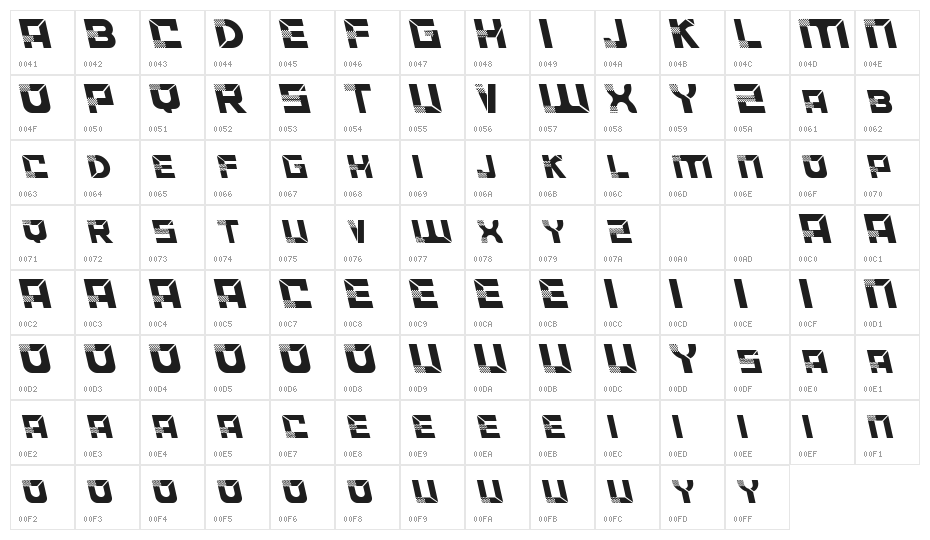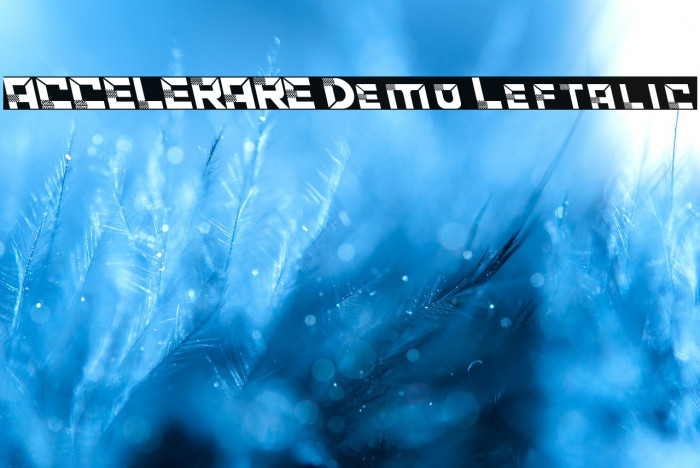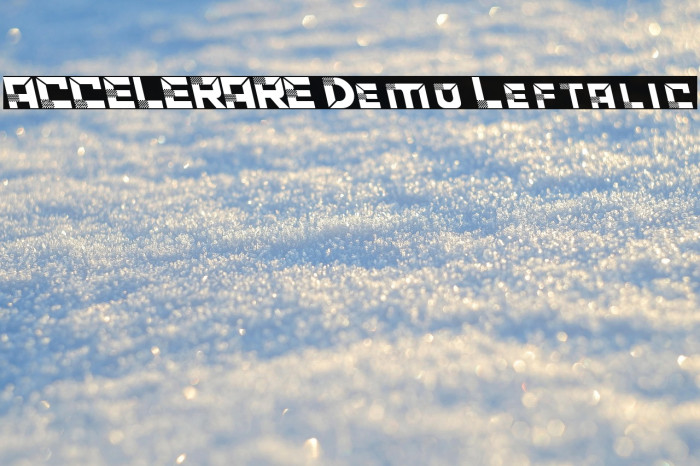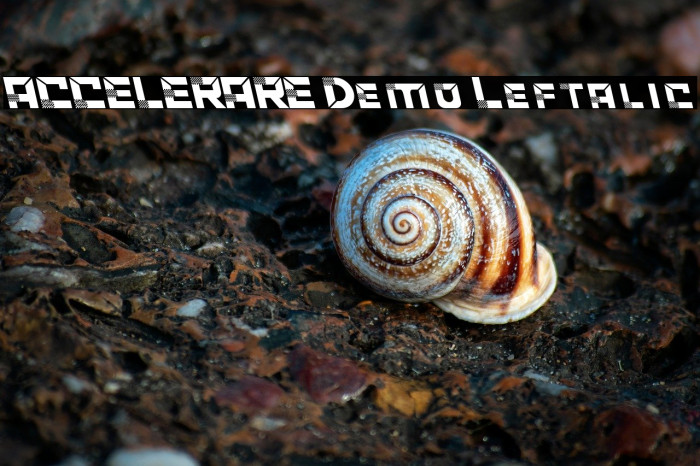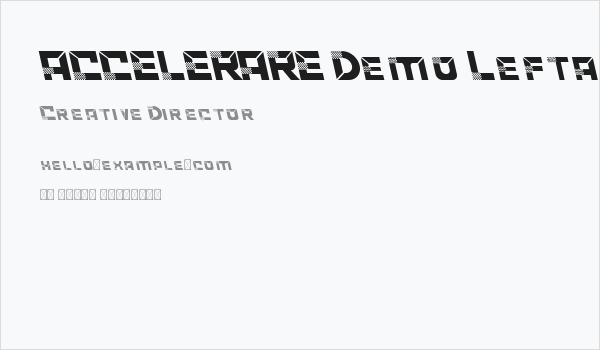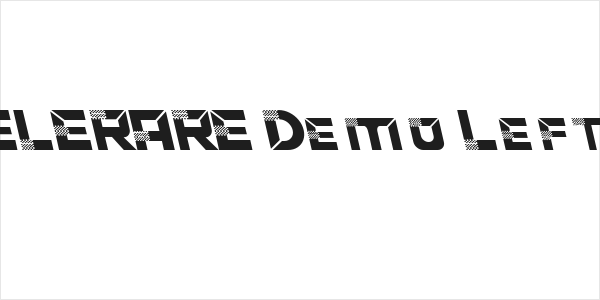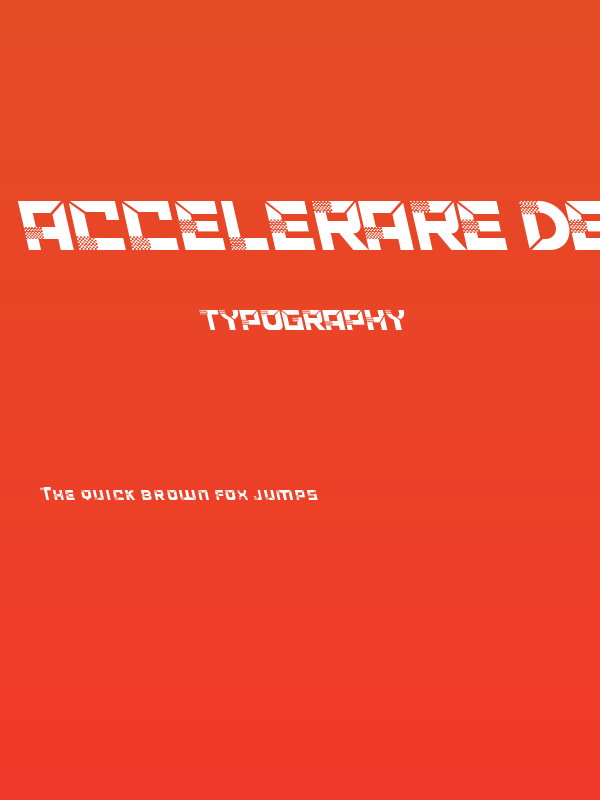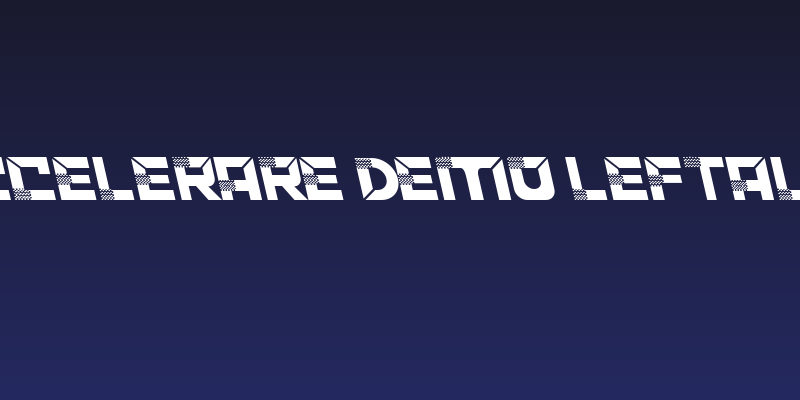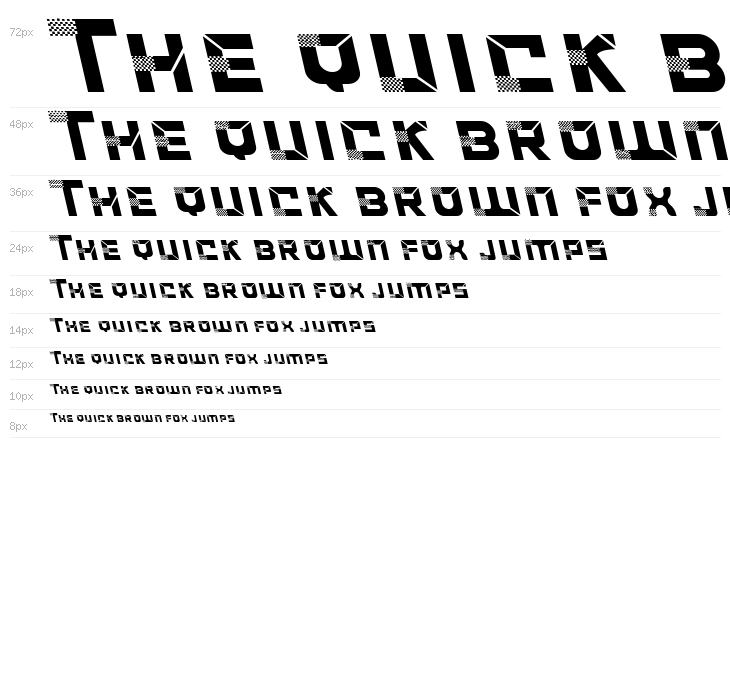
ACCELERARE Demo Leftalic Font
ACCELERARE Demo Leftalic Description
This font features a bold and dynamic design with a distinct geometric style. The characters are constructed with sharp angles and a unique pattern that incorporates a checkered texture, adding a sense of movement and speed. The uppercase letters are particularly striking, with a futuristic and industrial feel that makes them stand out. The font's design is consistent across all characters, maintaining a cohesive look that is both modern and edgy. The use of negative space within the letters enhances the overall aesthetic, making it ideal for projects that require a strong visual impact.